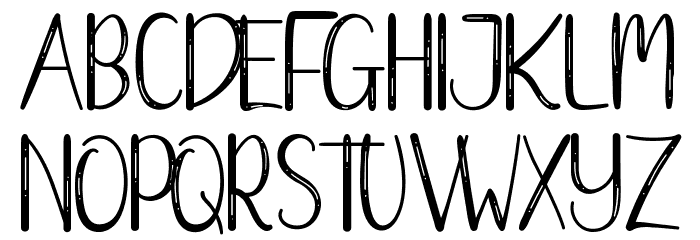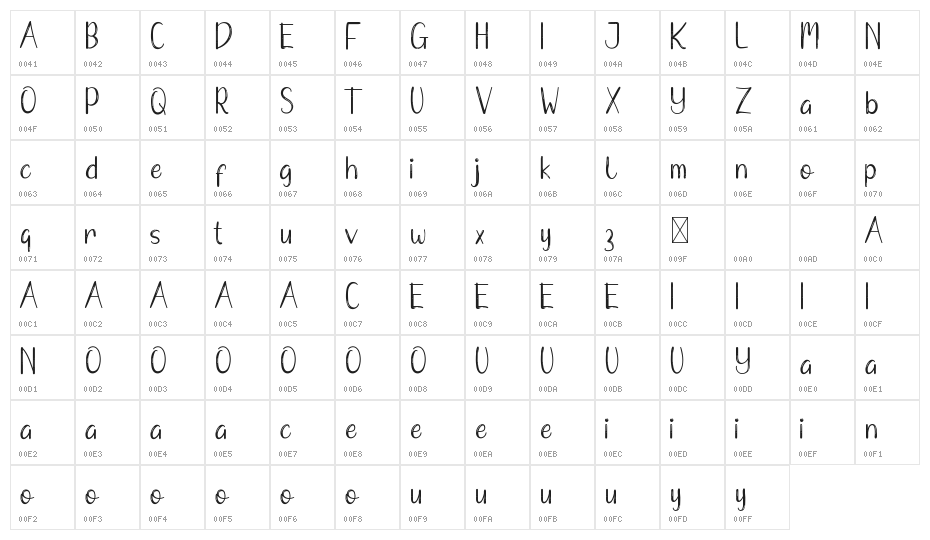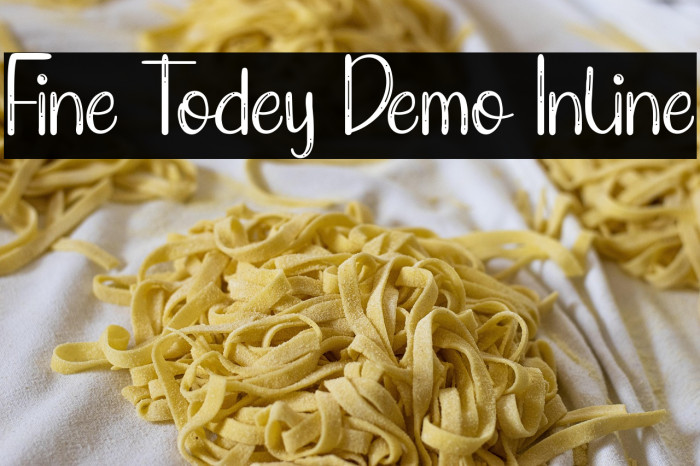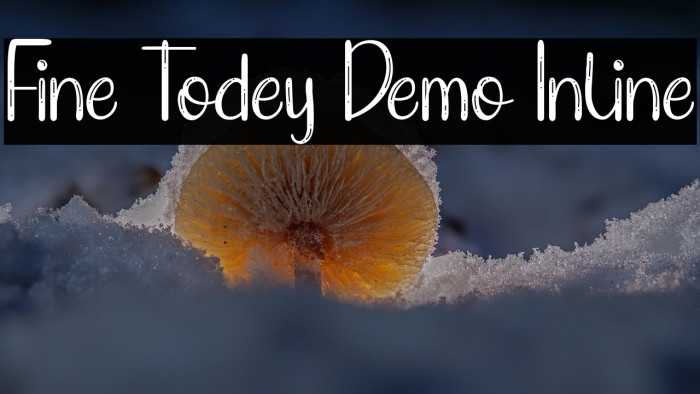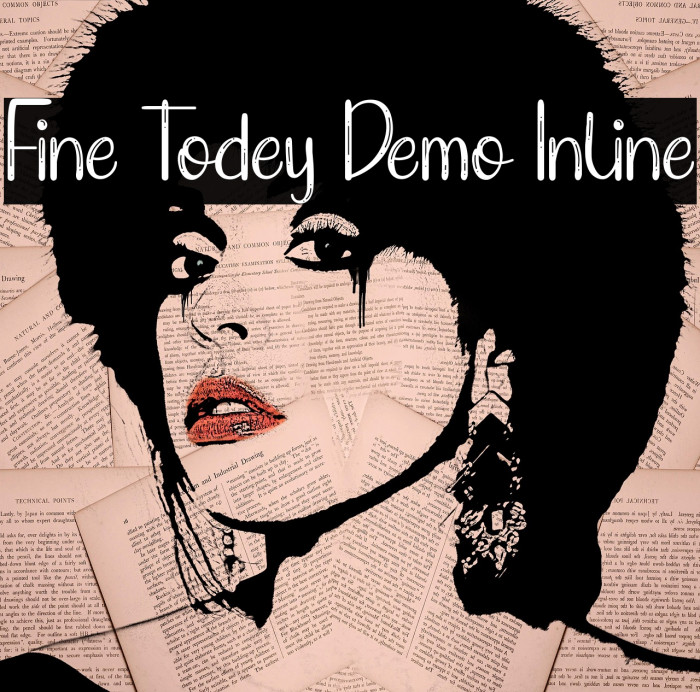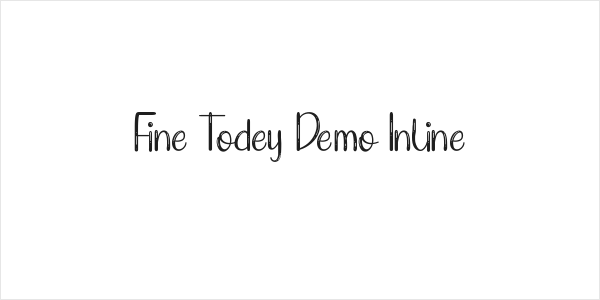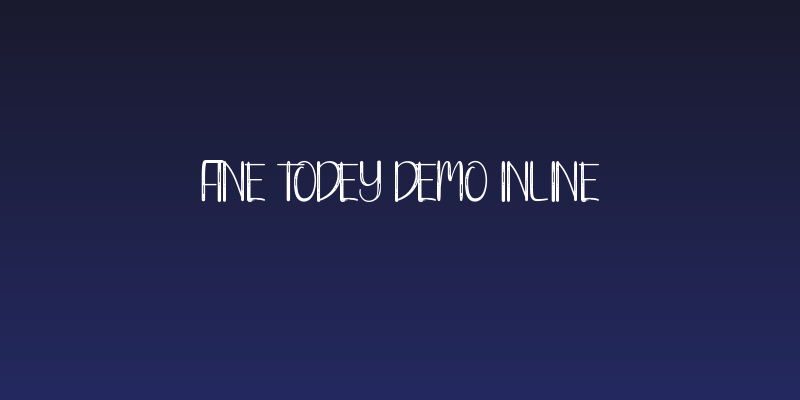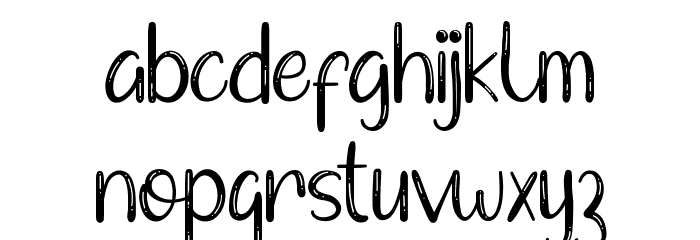
Fine Todey Demo Inline Font
Fine Todey Demo Inline Description
This font features a playful and artistic design with an inline style that adds a unique touch to each character. The uppercase and lowercase letters are crafted with a whimsical flair, incorporating thin lines within the main strokes that create an engaging visual effect. The characters are tall and slender, with a slightly irregular baseline that enhances the font's casual and creative appearance. The numerals and special characters maintain this distinctive style, ensuring consistency across all elements. This font is ideal for projects that require a fun and informal aesthetic.
| Overall Style | Playful, Artistic |
| Proposed Projects | Ideal for children's books, creative posters, playful branding, and artistic invitations. |